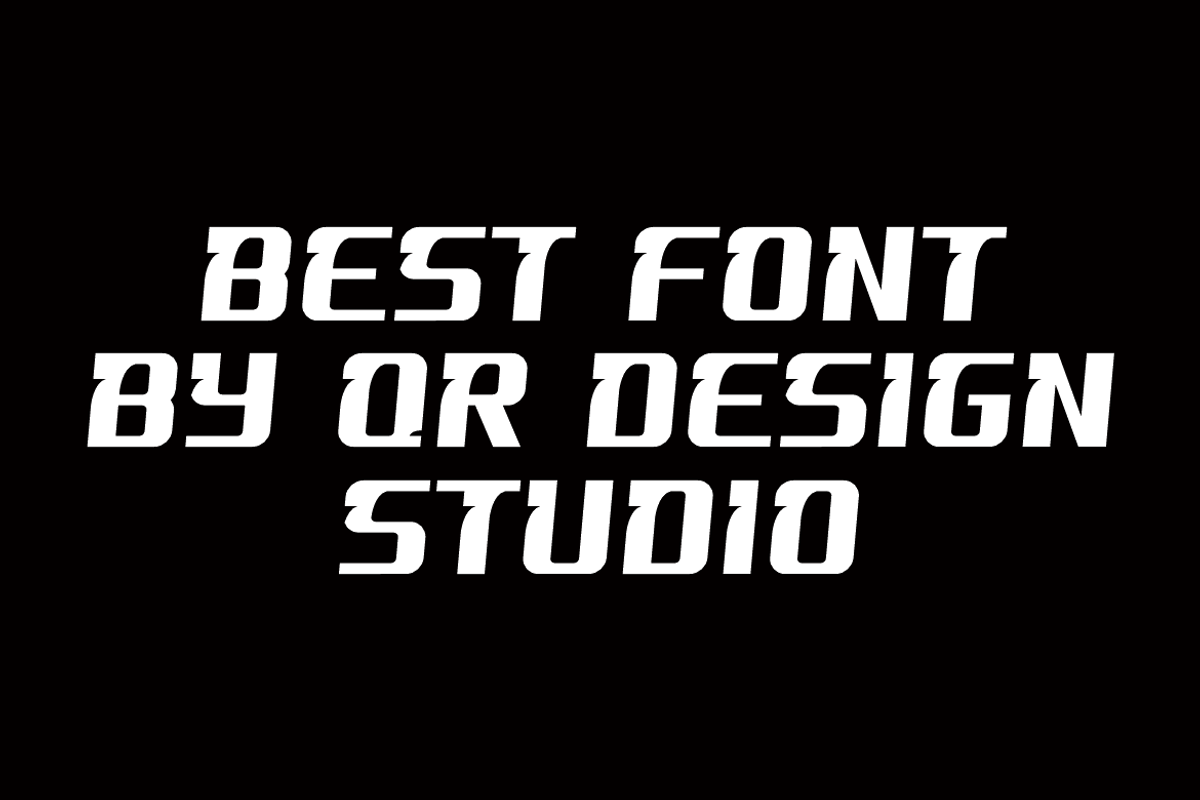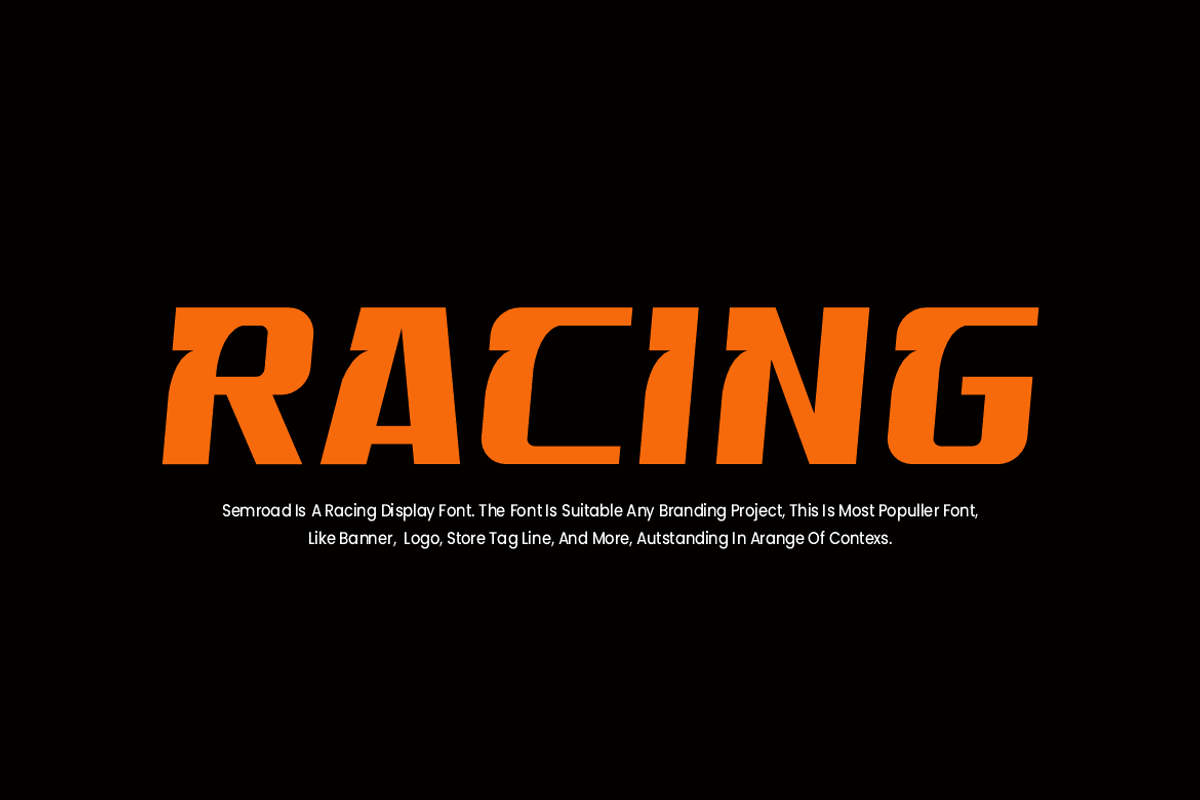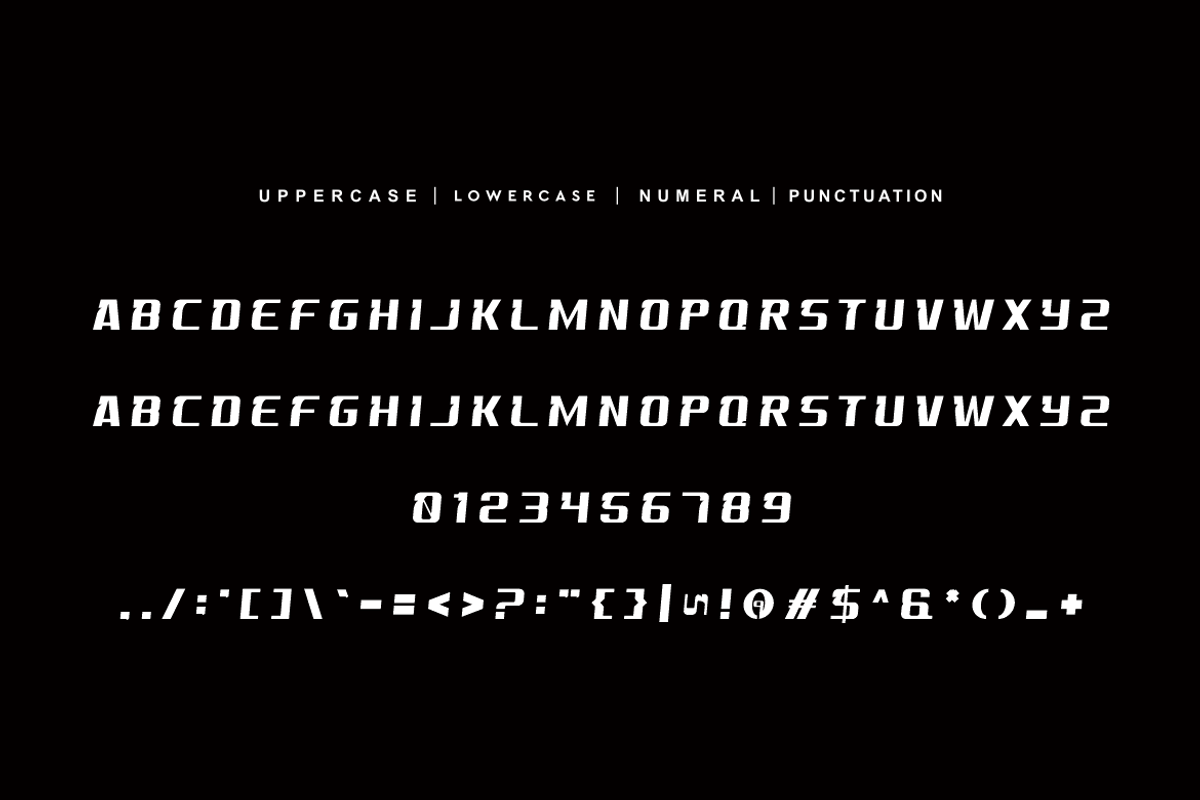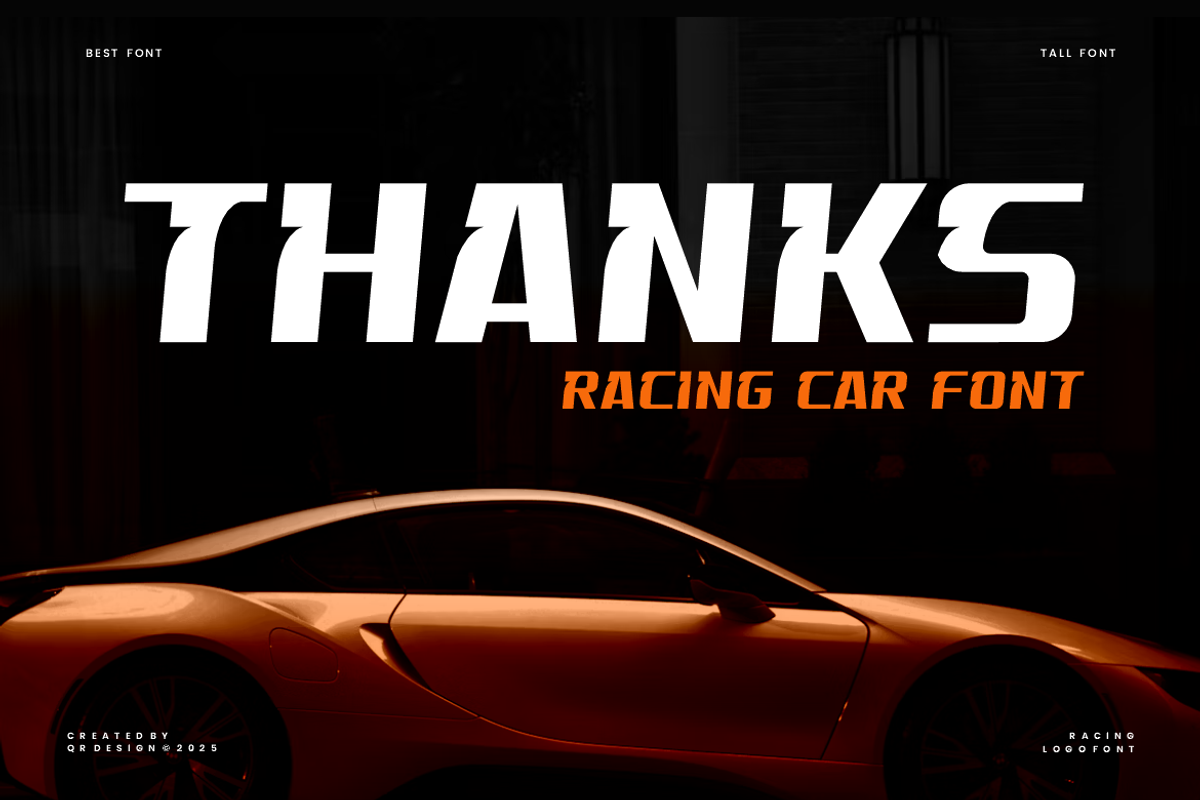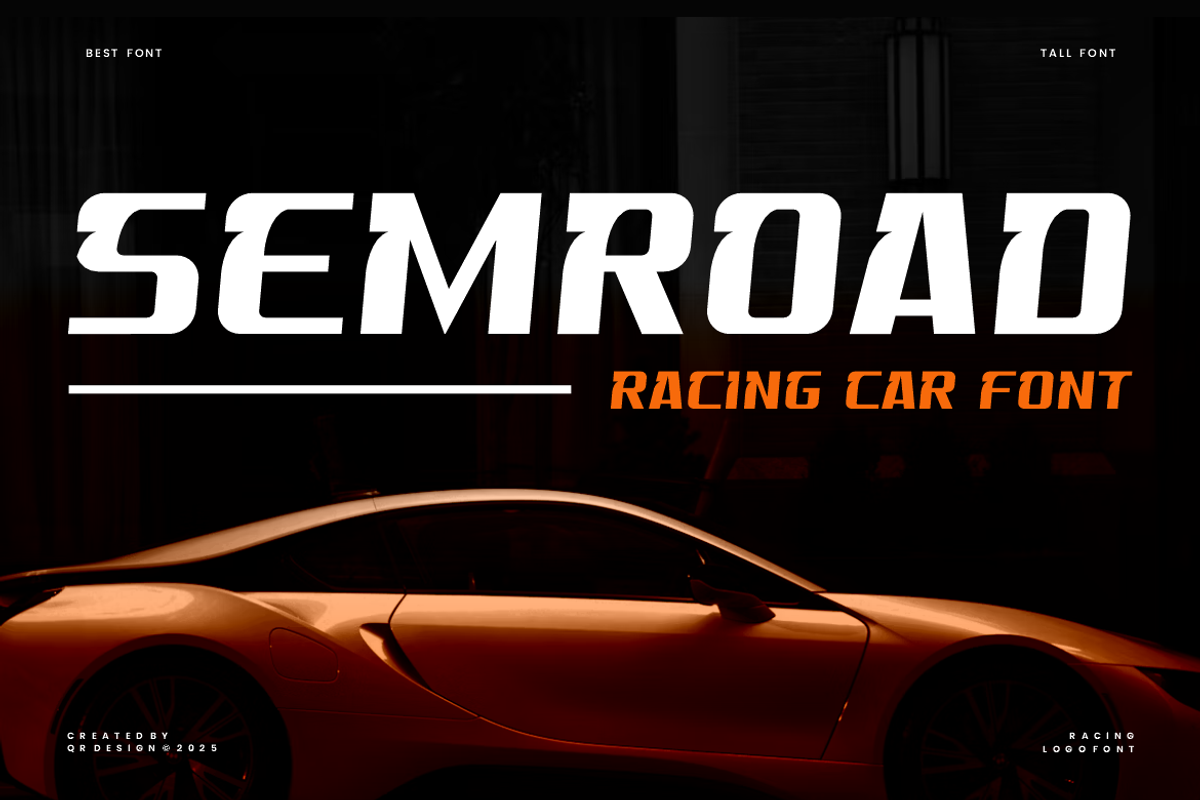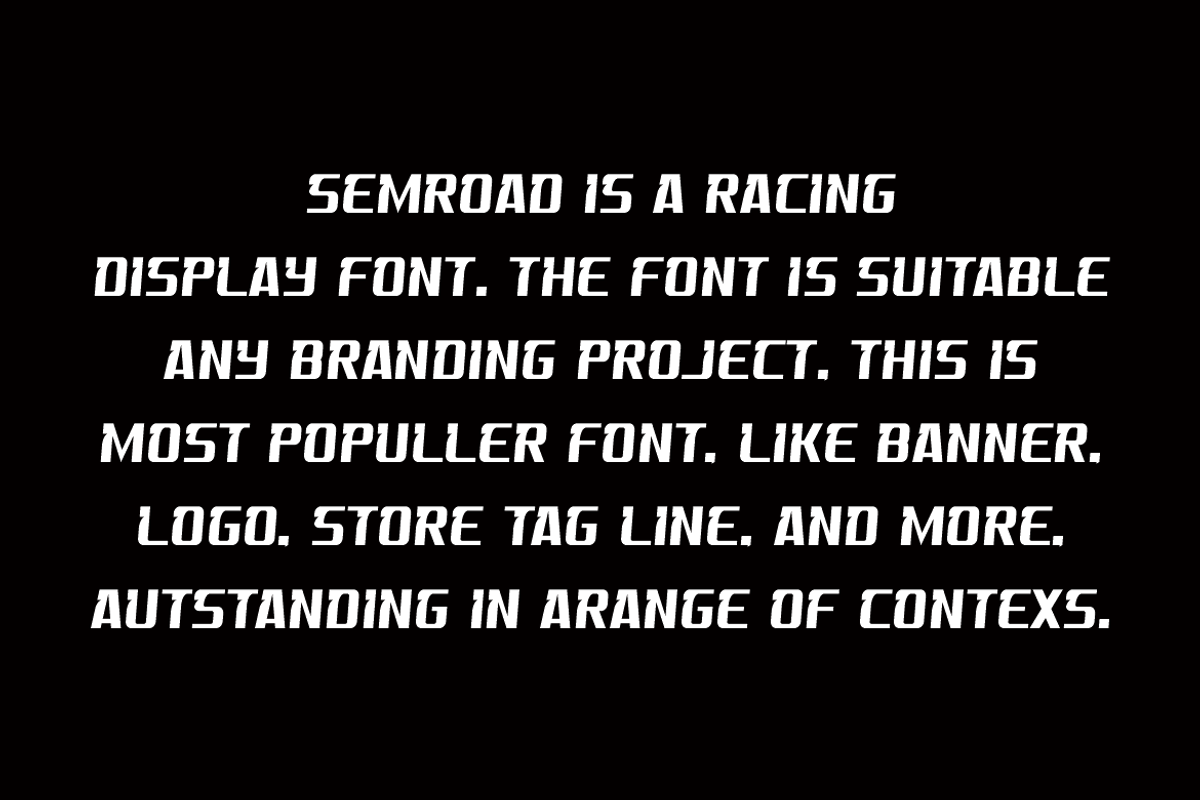
Semroad - Speed Car Font
Semroad Font is a bold and authentic display font. The font is suitable for any branding project like poster, logo, sport, and many more. Outstanding in a wide range of contexts.